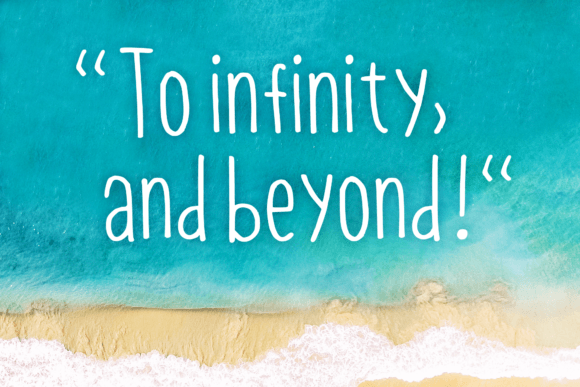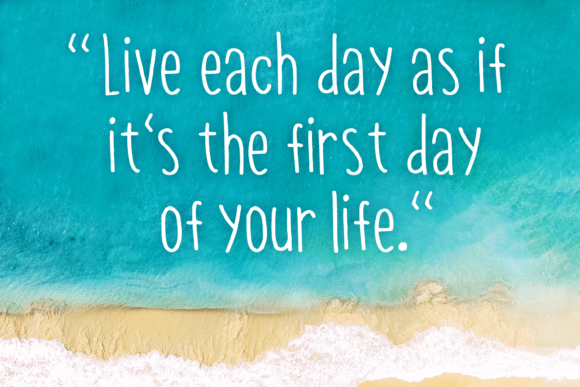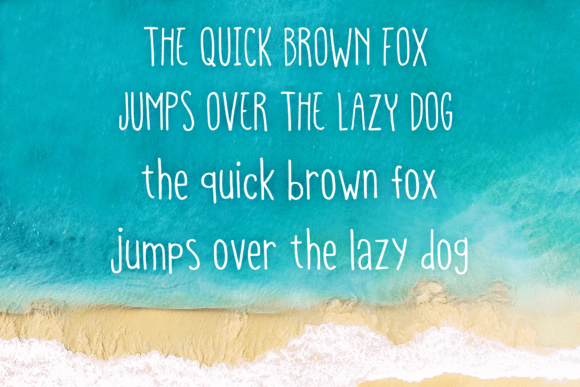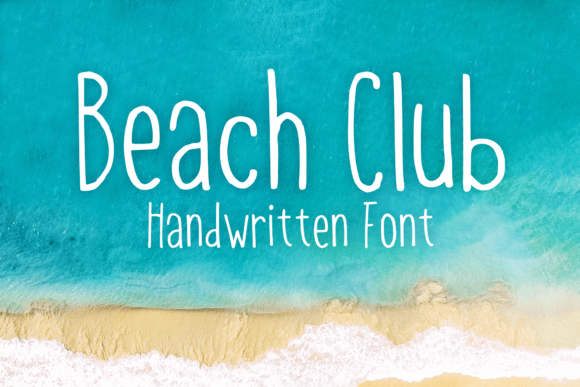
Introducing Beach Club Font: The Ultimate Choice for Casual and Creative Designs
Are you tired of using the same old fonts for your designs? Look no further! Beach Club Font is a cool and relaxed handwritten font that’s perfect for adding a casual touch to your creations. Whether you’re a designer, crafter, or DIY enthusiast, this font is sure to become your new favorite go-to.
What Makes Beach Club Font So Special?
Beach Club Font is a beautifully crafted handwritten font that’s designed to evoke a sense of relaxation and fun. Its incredibly versatile style makes it suitable for a wide range of projects, from t-shirts and kids’ book designs to greeting cards, stickers, and posters.
One of the standout features of Beach Club Font is its unique blend of playfulness and sophistication. The font’s casual, laid-back vibe makes it perfect for designs that need to feel approachable and friendly, while its elegant lines and curves ensure that it still looks great even at larger sizes.
Endless Possibilities with Beach Club Font
The best part about Beach Club Font is its incredible versatility. Here are just a few ideas to get you started:
- T-shirts and apparel: Add a relaxed, beachy vibe to your t-shirt designs with Beach Club Font. It’s perfect for creating fun and casual designs that will appeal to anyone who loves the beach.
- Kids’ book designs: Beach Club Font is a great choice for kids’ book designs, as it’s playful, fun, and easy to read. Use it to create engaging and interactive stories that kids will love.
- Greeting cards and invitations: Add a personal touch to your greeting cards and invitations with Beach Club Font. It’s perfect for creating warm and welcoming designs that will make your recipients feel special.
- Stickers and posters: Beach Club Font is a great choice for stickers and posters, as it’s bold, eye-catching, and easy to read. Use it to create fun and colorful designs that will grab attention.
Why Choose Beach Club Font?
So why should you choose Beach Club Font for your next project? Here are just a few reasons:
- Unique and eye-catching: Beach Club Font is a one-of-a-kind font that’s sure to stand out from the crowd. Its unique blend of playfulness and sophistication makes it perfect for designs that need to be memorable.
- Easy to read: Despite its casual vibe, Beach Club Font is incredibly easy to read, even at smaller sizes. This makes it perfect for designs that need to convey a message or tell a story.
- Highly versatile: Beach Club Font can be used for a wide range of projects, from digital designs to print materials. Its flexibility makes it a great addition to any designer’s toolkit.
Tips for Using Beach Club Font
Here are a few tips for getting the most out of Beach Club Font:
- Experiment with different sizes: Beach Club Font looks great at a range of sizes, from small and delicate to large and bold. Experiment with different sizes to find the one that works best for your design.
- Pair it with other fonts: Beach Club Font pairs well with a range of other fonts, from bold and sans-serif to elegant and script. Experiment with different pairings to find the one that works best for your design.
- Use it to add a personal touch: Beach Club Font is perfect for adding a personal touch to your designs. Use it to create custom illustrations, quotes, or messages that will make your designs stand out.
Beach Club Font is a cool and relaxed handwritten font that’s perfect for designers, crafters, and DIY enthusiasts. Its incredibly versatile style makes it suitable for a wide range of projects, from t-shirts and kids’ book designs to greeting cards, stickers, and posters. With its unique blend of playfulness and sophistication, Beach Club Font is sure to become your new favorite go-to font. So why wait? Download Beach Club Font today and start creating lovely designs that will make your audience fall in love!